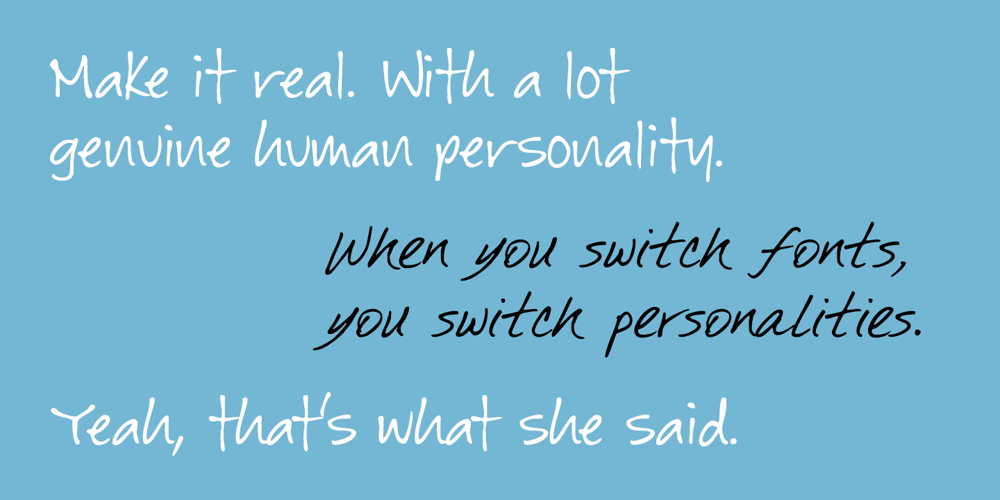
GFY Handwriting Fontpak Font Family was designed by Chank Diesel and published by Chank. GFY Handwriting Fontpak contains 42 styles and family package options. Go font yourself! The GFY Handwriting Fontpak is your complete handwriting font solution, a super-saver collection of 21 handwriting fonts, both cursive and print, drawn by real people and fontified by internet font pioneer Chank Diesel. Filled with expression and eccentricities, this fontpak features a great variety of personality types. Buy these fonts and you’ll be able to type in many voices from girly bubble letters (GFY Loopy) to a mature woman’s penmanship (GFY Marcie and GFY Sunny), from stoic architectural print (GFY Thornesmith and GFY Jack’s Blue Print) to loose casual styles (GFY Brutus, GFY Hey Steve, GFY Josie, GFY Palmer, GFY Pollak, GFY Ralston, GFY Shue, and GFY Sidney). Some fonts are arty and fashionable (GFY Jeanna, GFY Mancini, GFY Peggy, and GFY Woodward), while others are unusual and quirky (GFY Aunt Susan, GFY Kersti, GFY Kimberly, and GFY Michael). “It’s hard to find good handwriting fonts and to think you could get all of those at once is terrific,” says Chank customer Julie Burnette whose dad created GFY Jack’s Blue Print. The GFY Handwriting Fontpak is a collection of 21 fresh handwriting fonts in OpenType format for Macintosh or Windows. Contains the following fonts: GFY AuntSusan, GFY Brutus, GFY HeySteve, GFY JacksBluePrint, GFY Jeanna, GFY Josie, GFY Kersti, GFY Kimberly, GFY Loopy, GFY Marcie, GFY Mancini, GFY Michael, GFY Palmer, GFY Peggy, GFY Pollak, GFY Shue, GFY Ralston, GFY Sidney, GFY Sunny, GFY Thornesmith, and GFY Woodward.